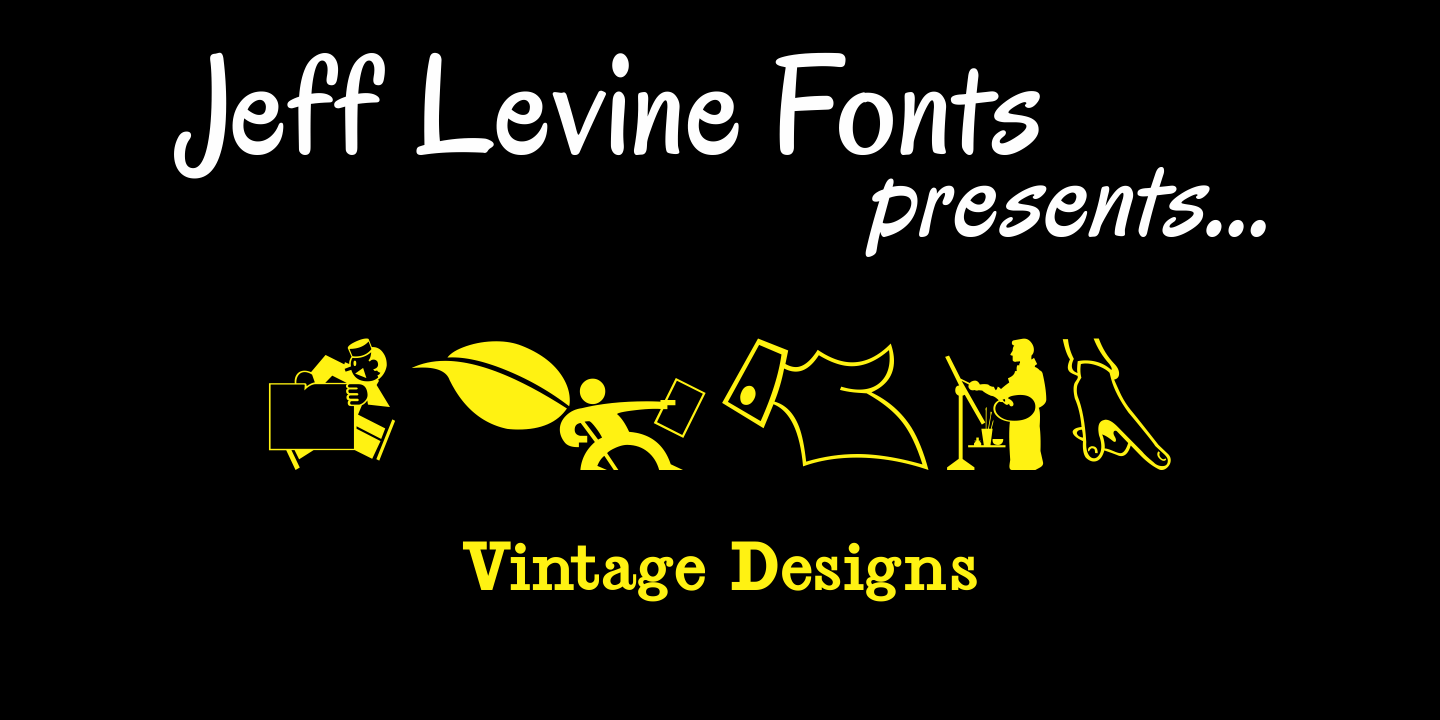
Vintage Designs
Vintage Designs JNL is another collection of images re-drawn from illustrations found in catalogs and sign painters' idea books from decades past.
Vintage Designs by Jeff Levine Fonts